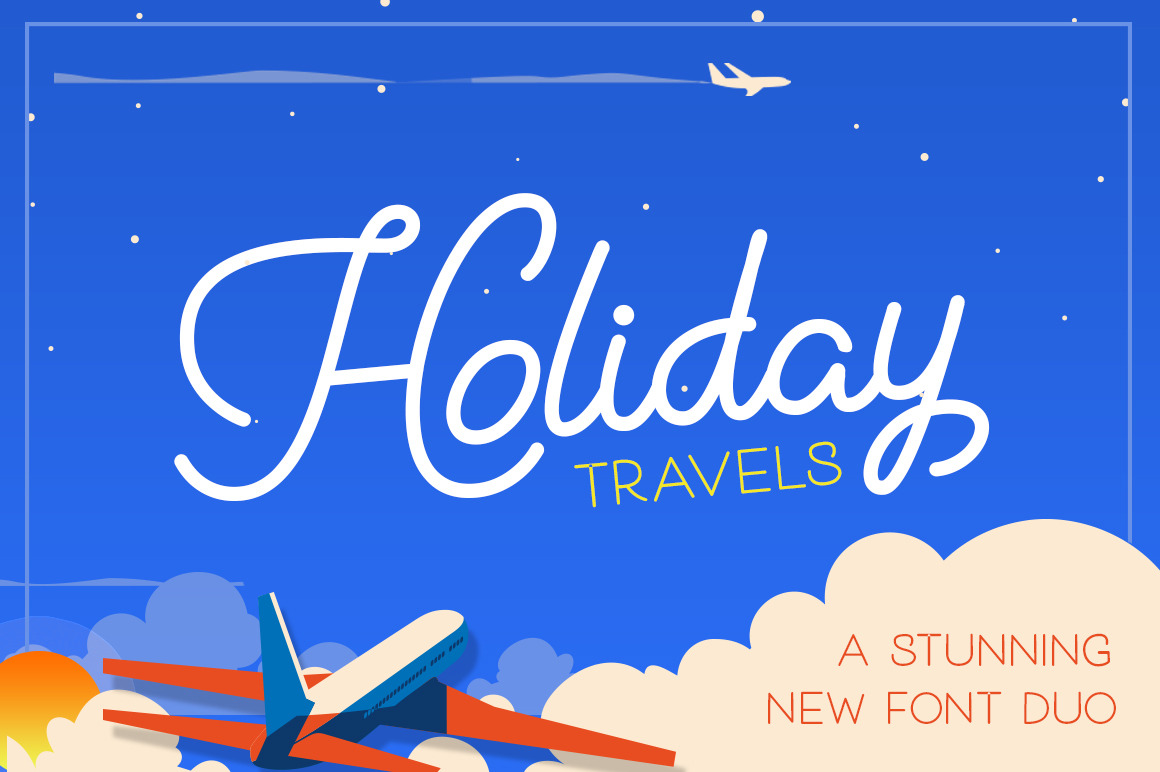
Holiday Travel Font Duo
Introducing our beautiful new typeface the "Holiday Travel Font Duo". This stunning new double act includes one script font, with alternates and a straight lined sans font. All characters are PUA encoded meaning its 100% accessible on all programs. Grab your copy today for only $14!